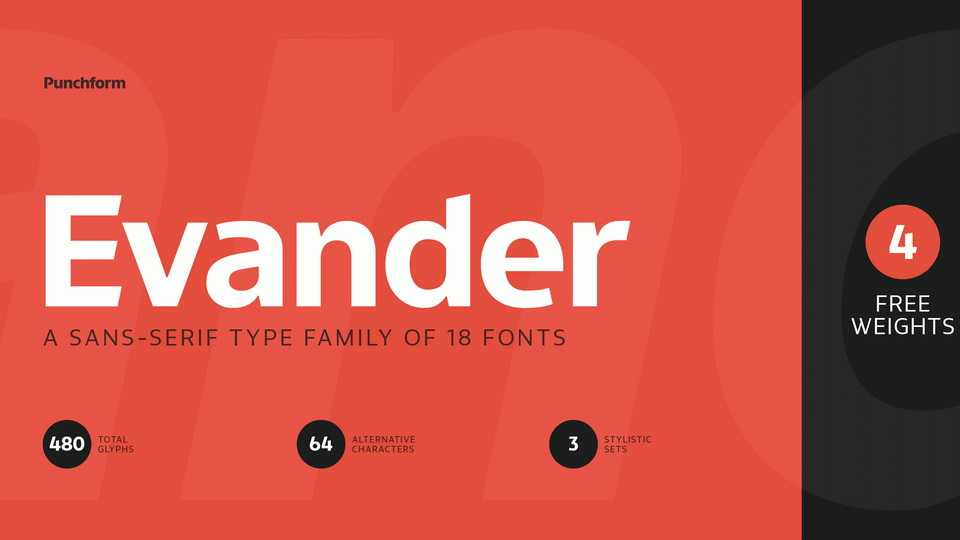
Download Evander font, a sans serif typeface that features versatility and legibility. Its clean and timeless design ensures that every character is crisp and easy to read, making Evander font the ideal choice for a wide range of design projects.
Designer: Punchform